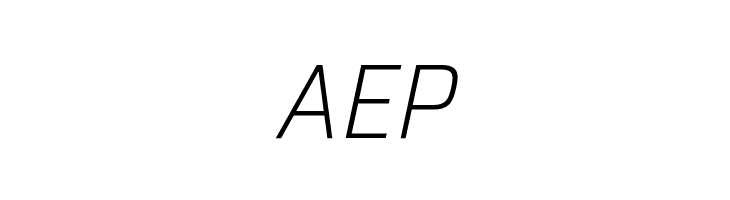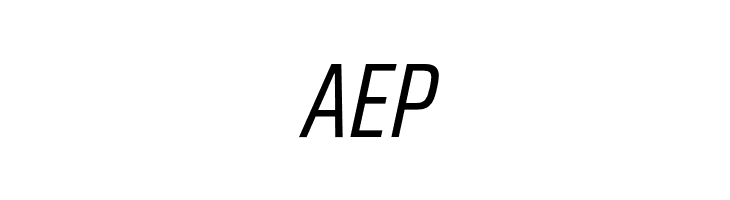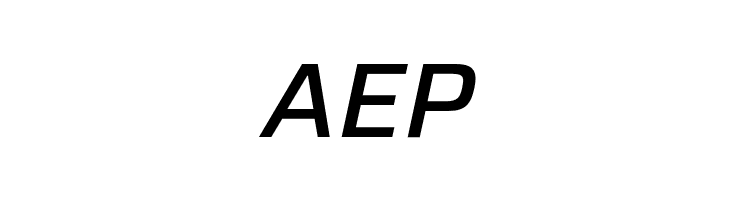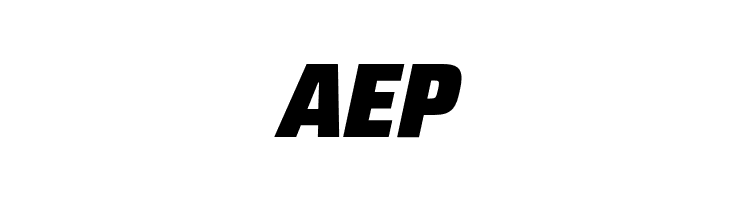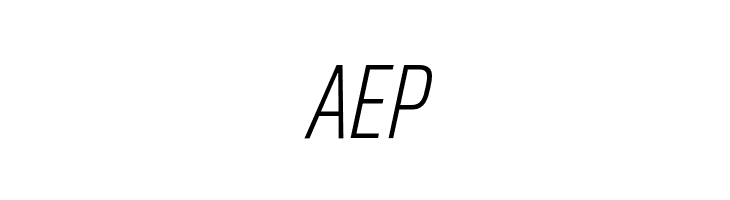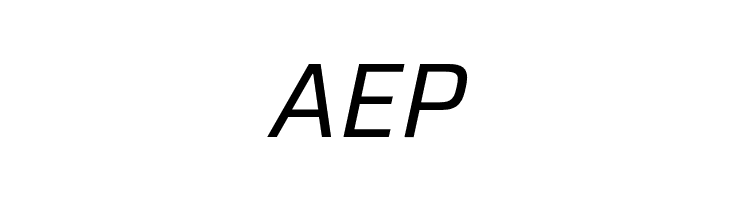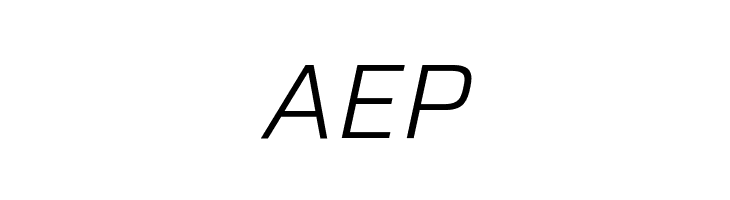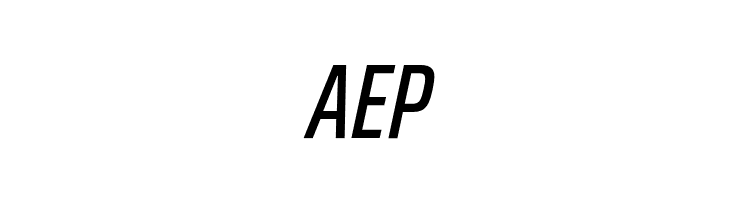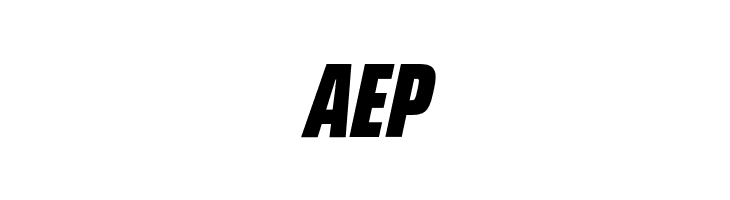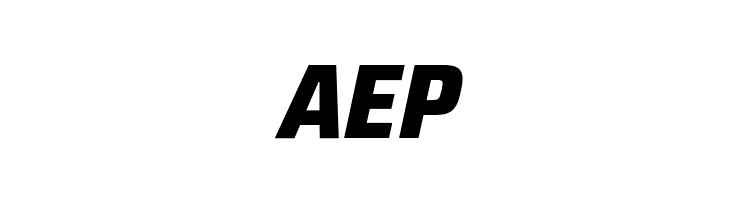
( Fonts by Omnibus Type ) A bold, extra-condensed font with a modern and impactful style. Download 43 Downloads@WebFont
( Fonts by Omnibus Type ) A bold, condensed, and italic font with high contrast and tight spacing, perfect for impactful designs. Download 233 Downloads@WebFont
( Fonts by Omnibus Type ) A bold, extra-condensed typeface with a modern and impactful style. Download 366 Downloads@WebFont
( Fonts by Omnibus Type ) A bold, italic, extra-condensed font with high contrast and tight spacing. Download 165 Downloads@WebFont
( Fonts by Omnibus Type ) A bold, condensed sans-serif font with a modern and assertive style. Download 37 Downloads@WebFont
( Fonts by Omnibus Type ) A bold, extra-condensed italic font with a dynamic and modern style. Download 209 Downloads@WebFont
( Fonts by Omnibus Type ) A sleek, extra-condensed, extra-light italic font with a modern aesthetic. Download 47 Downloads@WebFont
( Fonts by Omnibus Type ) A sleek, italicized, extra-condensed font with a modern and dynamic style. Download 73 Downloads@WebFont
( Fonts by Omnibus Type ) A sleek, extra condensed font with a modern, minimalist design. Download 34 Downloads@WebFont
( Fonts by Omnibus Type ) A sleek, extra condensed, light italic font with a modern and dynamic style. Download 79 Downloads@WebFont
( Fonts by Omnibus Type ) A modern, condensed typeface with clean lines and uniform stroke width. Download 44 Downloads@WebFont
( Fonts by Omnibus Type ) A sleek, extra condensed italic font with a modern and dynamic style. Download 63 Downloads@WebFont
( Fonts by Omnibus Type ) A modern, extra condensed sans-serif font with uniform stroke width. Download 41 Downloads@WebFont
( Fonts by Omnibus Type ) A modern, extra condensed, semi-bold font with clean lines and geometric shapes. Download 43 Downloads@WebFont
( Fonts by Omnibus Type ) A sleek, extra condensed, semi-bold italic font with high contrast and tight spacing. Download 102 Downloads@WebFont
( Fonts by Omnibus Type ) A sleek, modern, extra-condensed font with thin strokes and geometric shapes. Download 37 Downloads@WebFont
( Fonts by Omnibus Type ) A sleek, extra condensed, thin italic font with a modern and elegant style. Download 60 Downloads@WebFont
( Fonts by Omnibus Type ) A geometric sans-serif font with a clean, modern look and uniform stroke widths. Download 77 Downloads@WebFont
( Fonts by Omnibus Type ) A sleek, modern italic font with an extra light weight and minimalist design. Download 82 Downloads@WebFont
( Fonts by Omnibus Type ) A sleek, modern sans-serif font with an italic slant and uniform stroke width. Download 202 Downloads@WebFont
( Fonts by Omnibus Type ) A modern, geometric sans-serif font with a clean and uniform appearance. Download 78 Downloads@WebFont
( Fonts by Omnibus Type ) A sleek, modern sans-serif font with a light, italic style and normal spacing. Download 94 Downloads@WebFont
( Fonts by Omnibus Type ) A modern, geometric sans-serif font with a clean and professional appearance. Download 89 Downloads@WebFont
( Fonts by Omnibus Type ) A modern, italic sans-serif font with clean lines and a dynamic style. Download 132 Downloads@WebFont
( Fonts by Omnibus Type ) A modern, geometric sans-serif font with clean lines and balanced proportions. Download 142 Downloads@WebFont
( Fonts by Omnibus Type ) A modern sans-serif font with semi-bold weight and medium contrast. Download 320 Downloads@WebFont
( Fonts by Omnibus Type ) A sleek, semi-bold italic font with a modern and dynamic style. Download 296 Downloads@WebFont
( Fonts by Omnibus Type ) A bold, semi-condensed sans-serif font with a modern and impactful style. Download 139 Downloads@WebFont
( Fonts by Omnibus Type ) A bold, semi-condensed italic font with high contrast and modern appeal. Download 316 Downloads@WebFont
( Fonts by Omnibus Type ) A bold, semi-condensed typeface with a modern and clean design. Download 68 Downloads@WebFont
( Fonts by Omnibus Type ) A modern, semi-condensed, bold italic font with high contrast and tight spacing. Download 185 Downloads@WebFont
( Fonts by Omnibus Type ) A bold, semi-condensed typeface with a modern and impactful style. Download 68 Downloads@WebFont
( Fonts by Omnibus Type ) A bold, semi-condensed italic font with a modern and dynamic style. Download 295 Downloads@WebFont
( Fonts by Omnibus Type ) A modern, semi-condensed font with a clean and minimalist design. Download 56 Downloads@WebFont
( Fonts by Omnibus Type ) A sleek, modern semi-condensed italic typeface with an extra light weight. Download 273 Downloads@WebFont